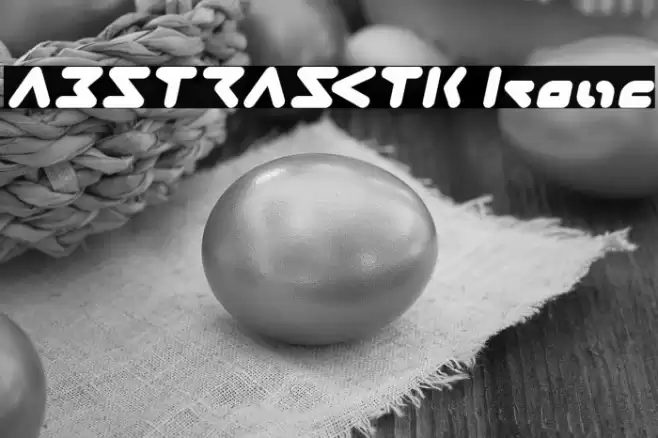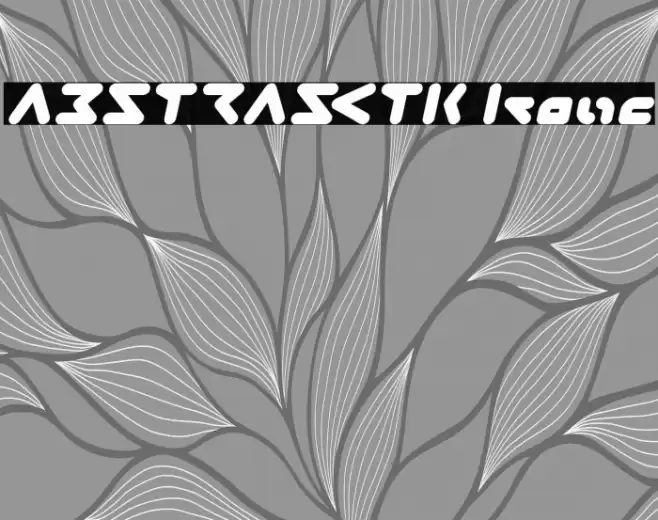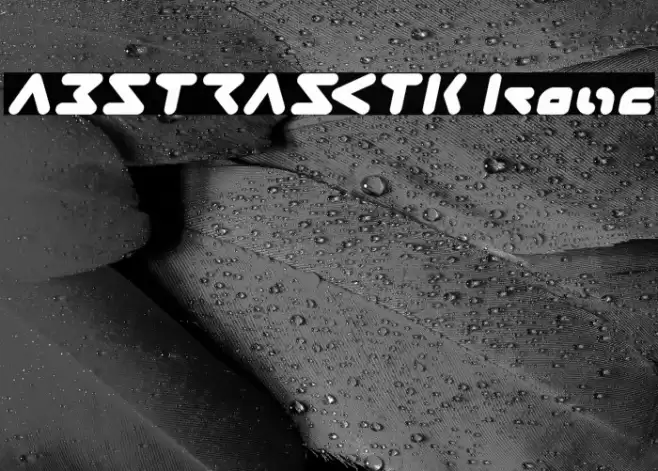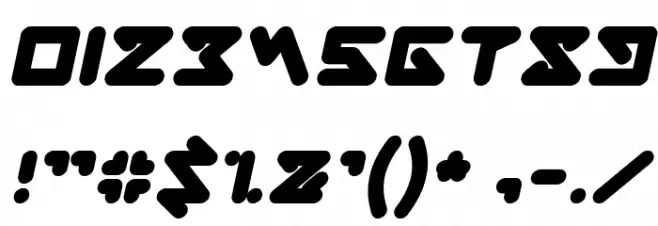
ABSTRASCTIK Italic Font
ABSTRASCTIK Italic Description
This font features a bold, futuristic design with a distinctly geometric and abstract style. The characters are heavily stylized with angular shapes and rounded edges, creating a unique and modern appearance. The uppercase and lowercase letters maintain a consistent visual theme, with a slight slant that adds a dynamic, italicized effect. The numbers and special characters follow the same design principles, ensuring uniformity across all glyphs. The font's thick strokes and solid forms make it highly legible while maintaining a decorative flair.
A bold, geometric, and abstract font with a futuristic, italicized style from Uncategorized fonts.
- Proposed Projects: Ideal for sci-fi themed projects, modern branding, video game interfaces, and tech-related designs.
- Overall Style: Futuristic